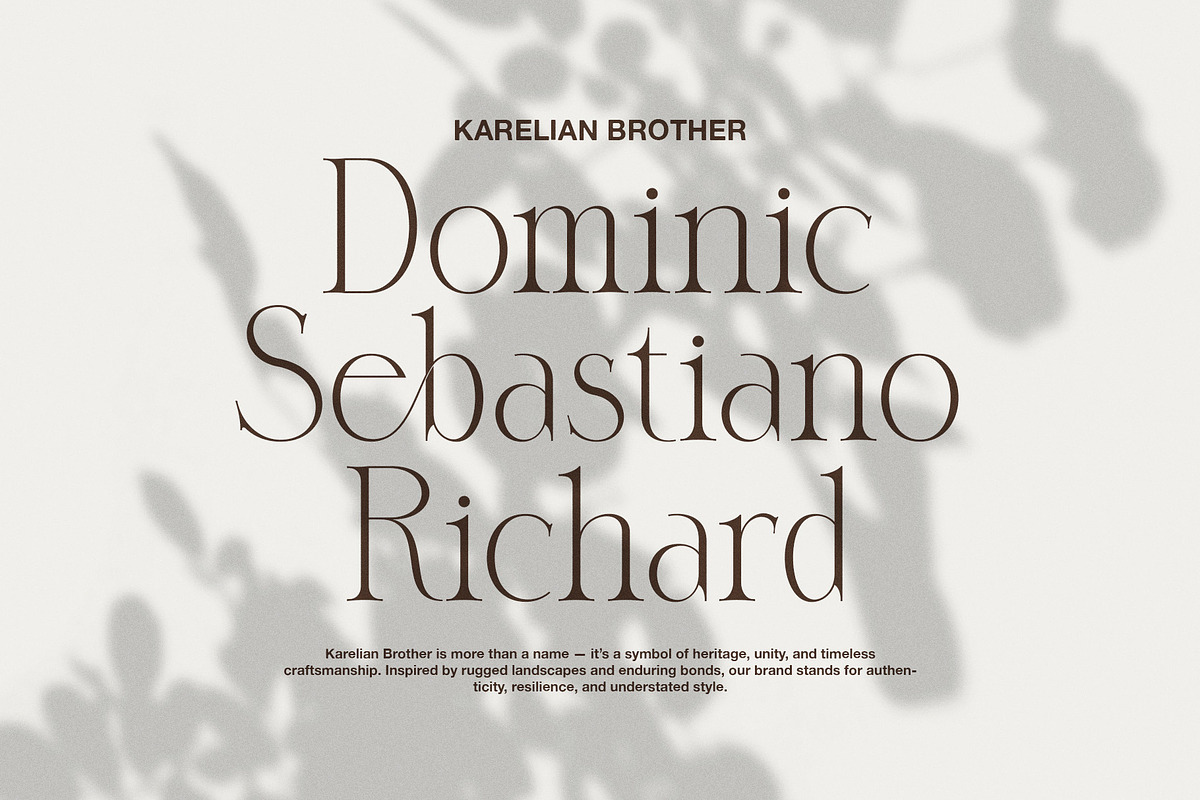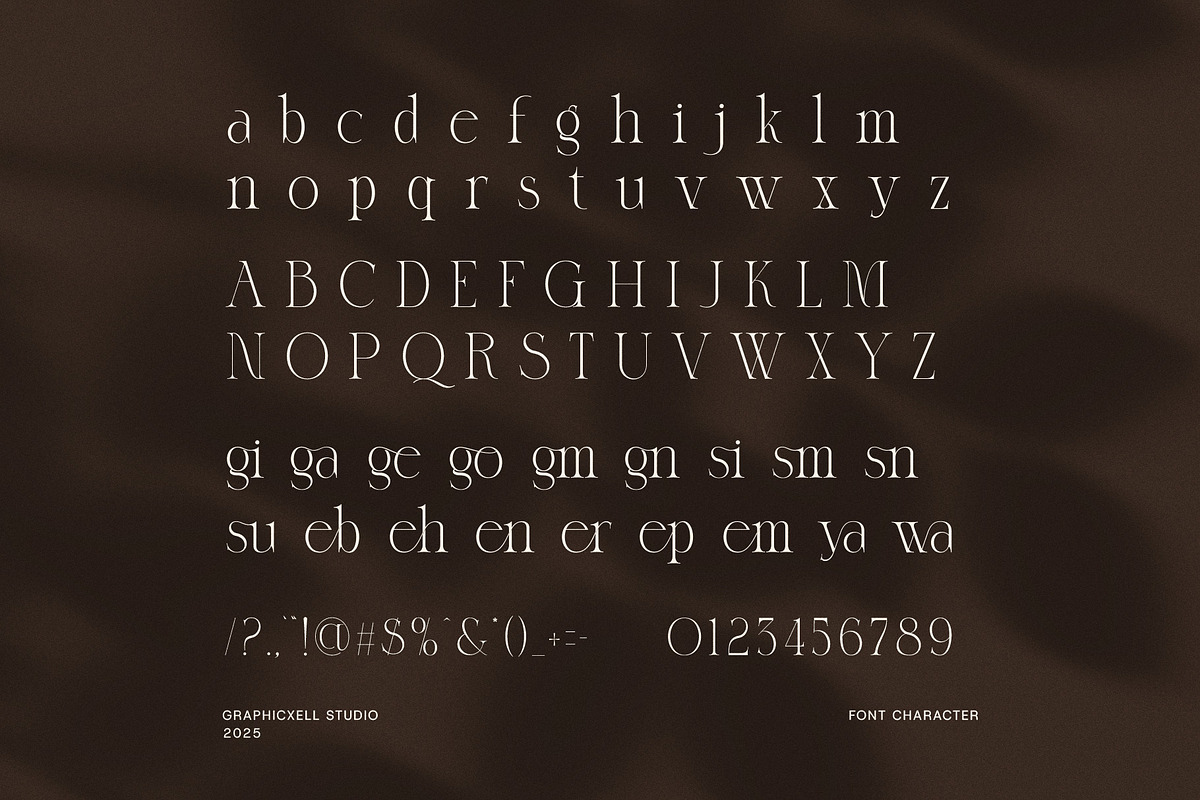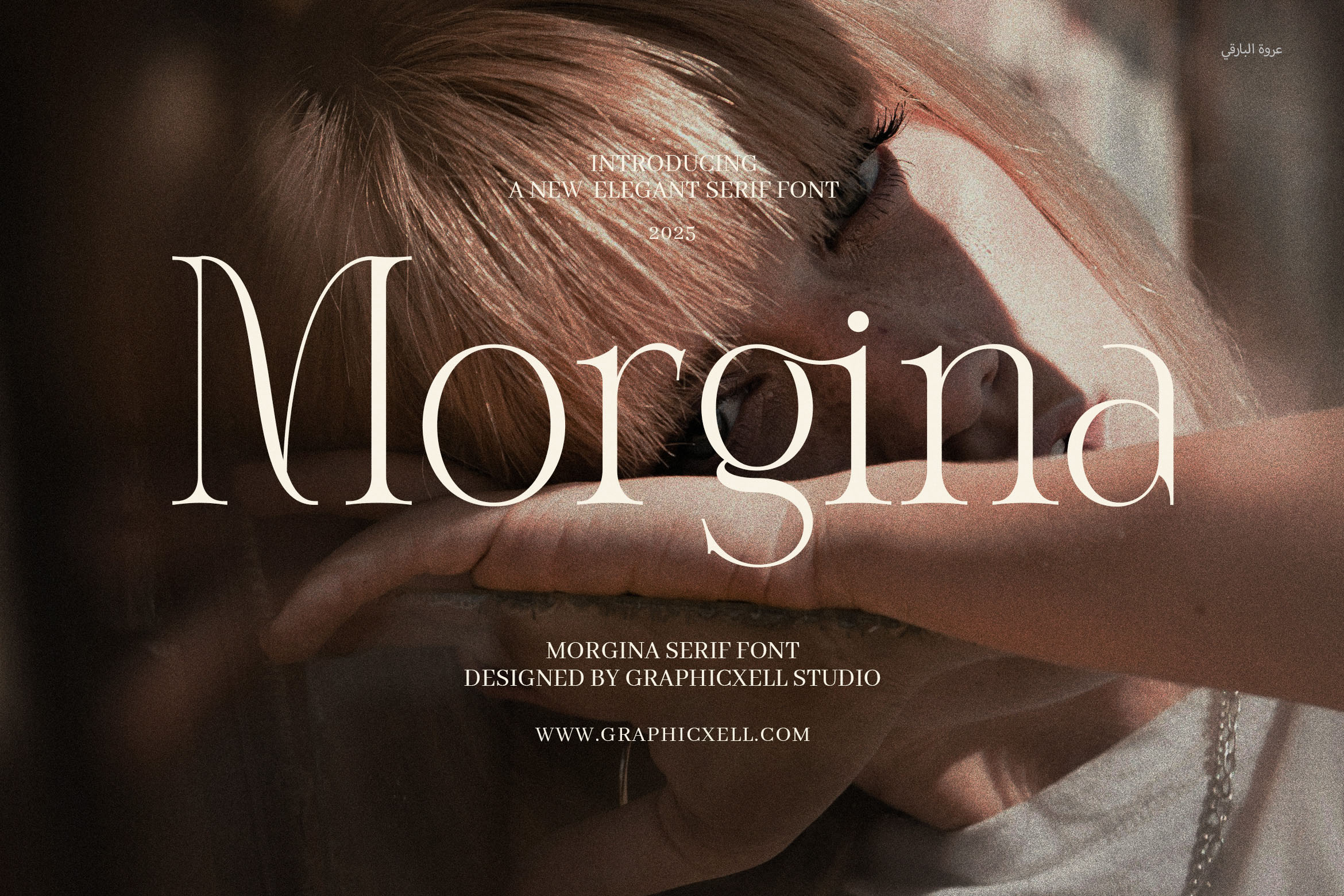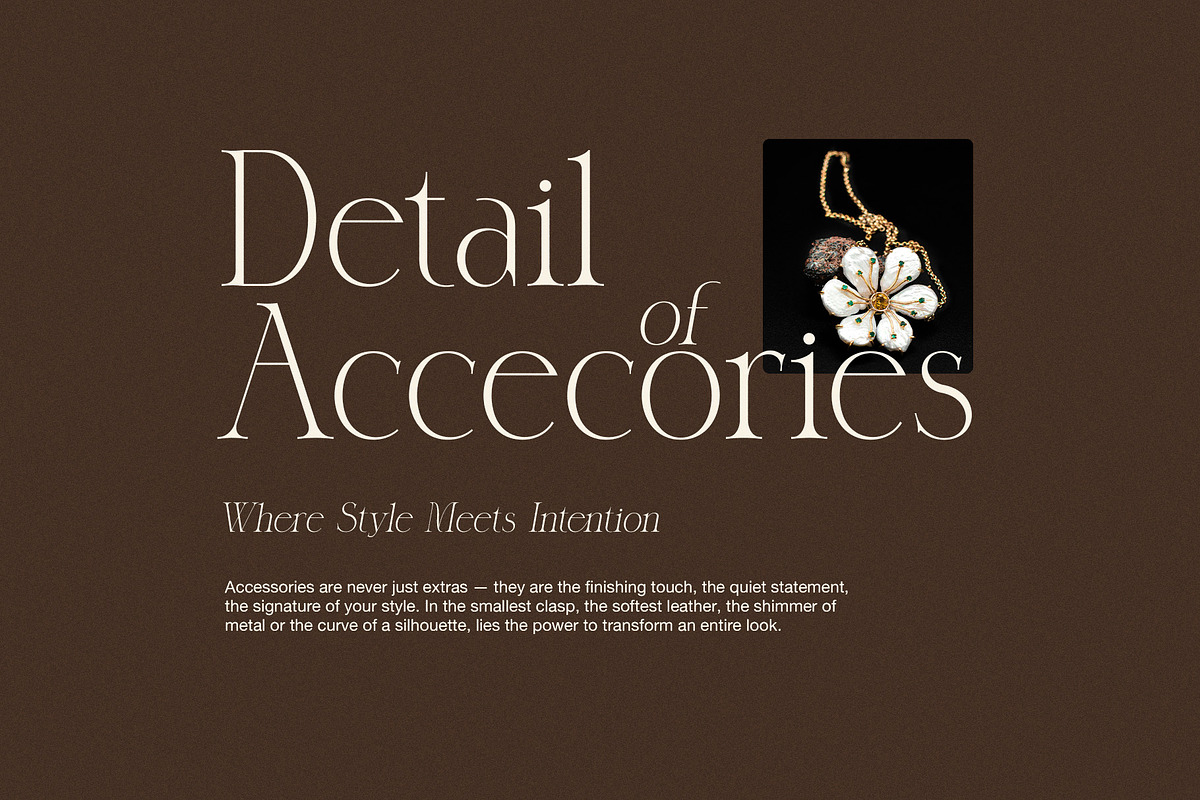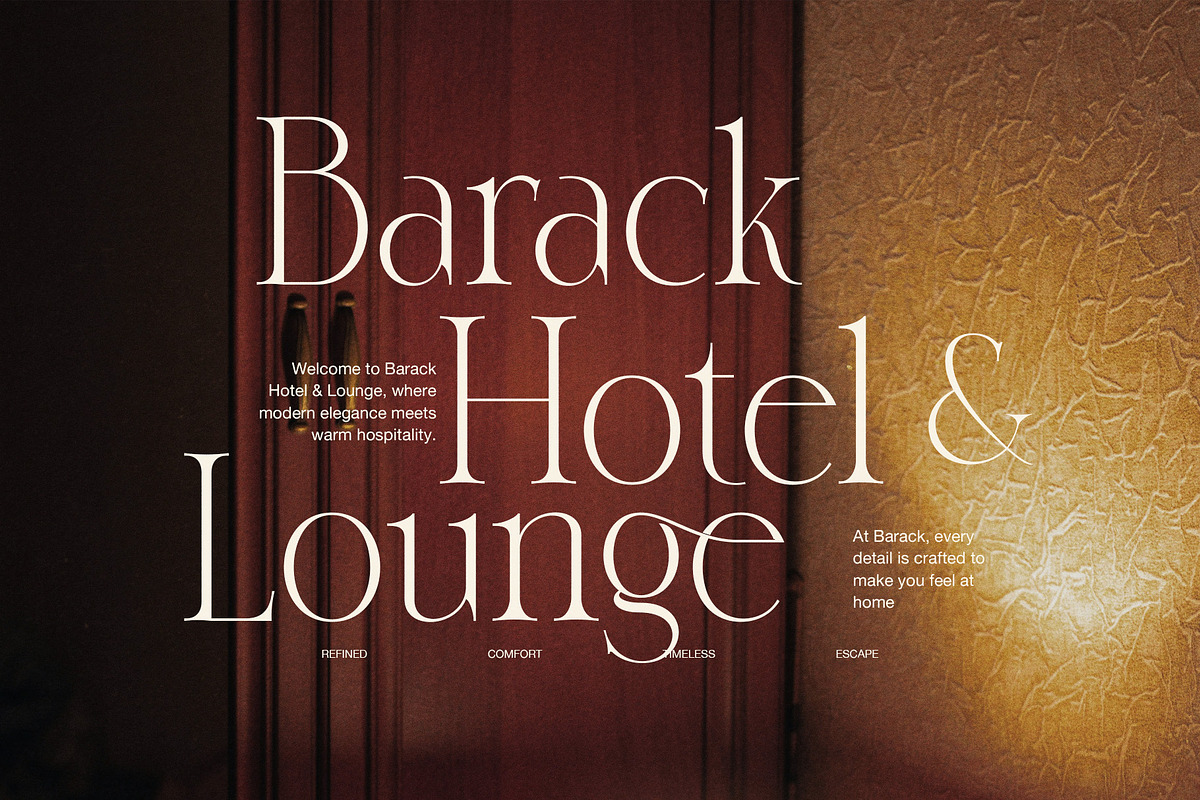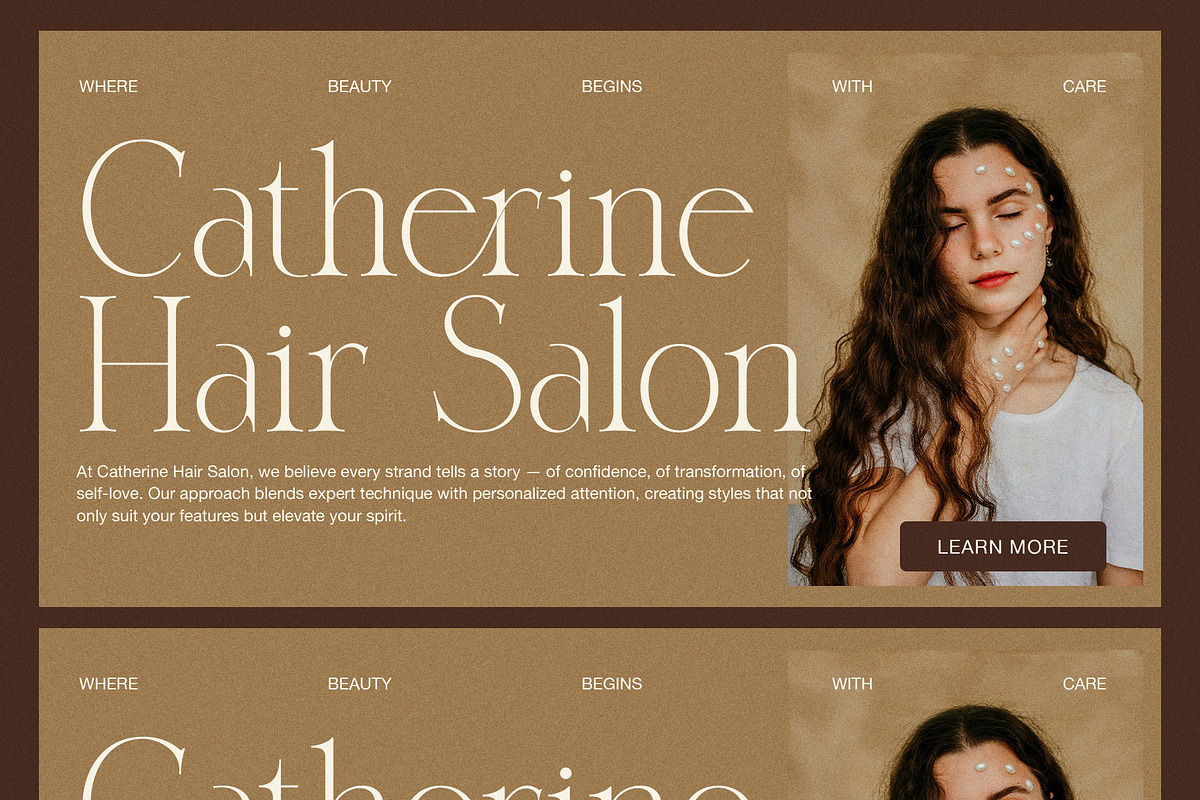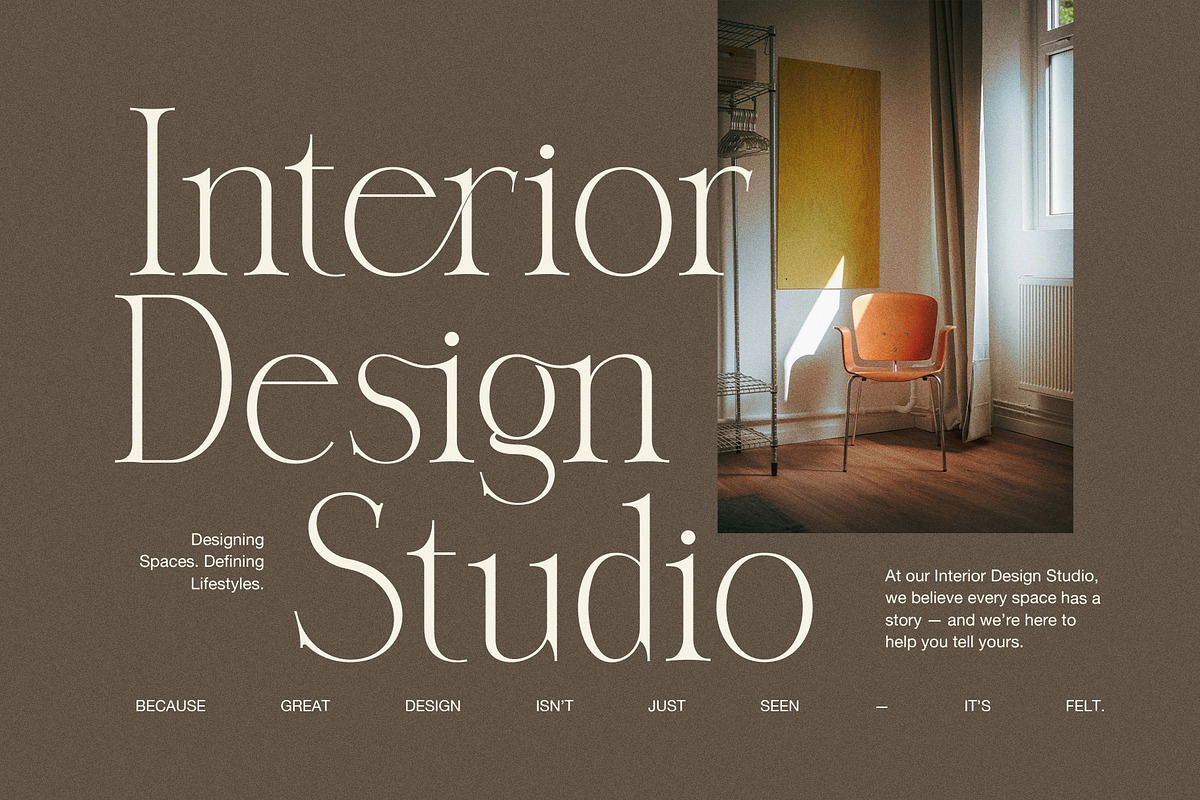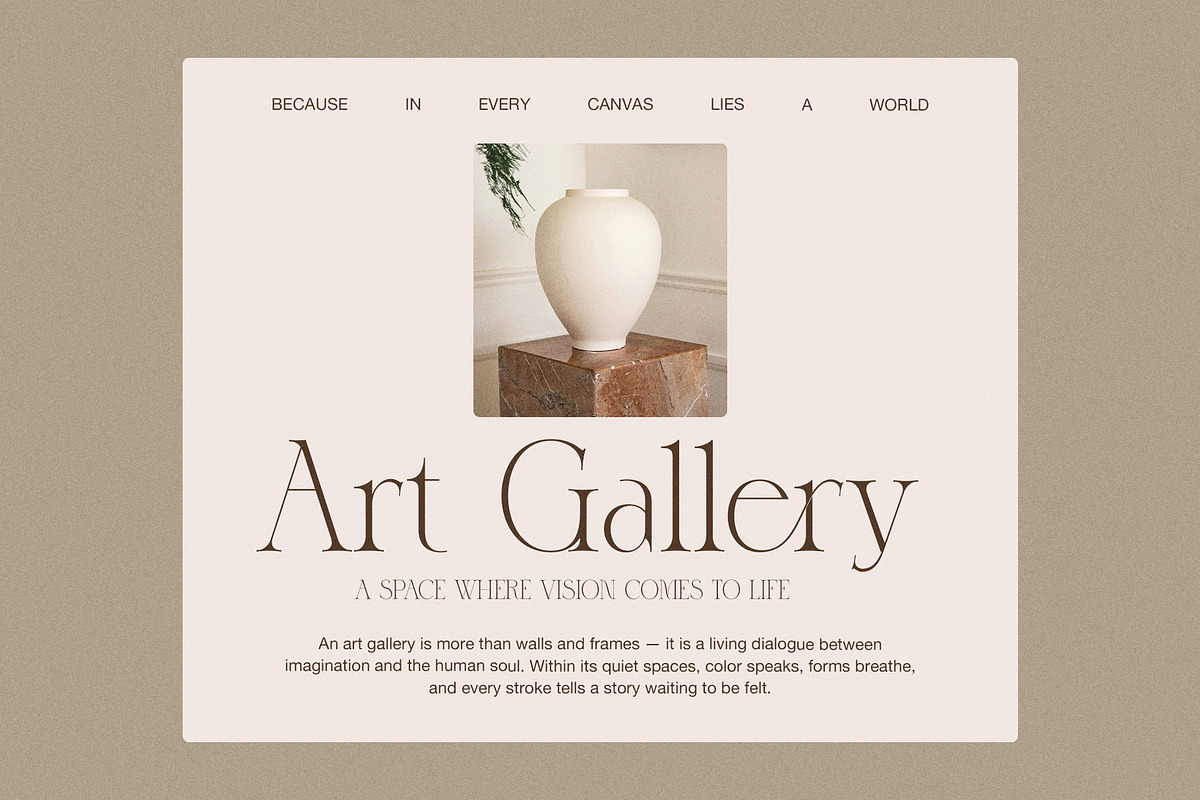
Morgina Elegant Serif Font
Morgina Elegant Serif Font is a refined blend of classic charm and contemporary sophistication, crafted for designers who crave timeless elegance with a modern twist. With its graceful curves, high-contrast strokes, and distinctive serifs, Morgina brings a luxurious feel to any design project. Whether you're creating a bold brand identity or adding a touch of class to editorial layouts, this font delivers both beauty and versatility.
Perfectly suited for logos, branding, website headers, fashion editorials, product packaging, and upscale advertisements, Morgina exudes confidence and creativity. Its elegant structure makes it a standout choice for boutiques, beauty products, fine dining brands, and lifestyle blogs aiming to evoke refinement and style. The font includes a full set of uppercase and lowercase letters, punctuation, numerals, and multilingual support—making it a complete toolkit for creative professionals.
What sets Morgina apart is its ability to strike a balance between tradition and innovation. While inspired by classic serif typography, its modern proportions and sleek finish make it ideal for contemporary visual identities. The letterforms are thoughtfully designed to remain highly readable, even at smaller sizes, while still commanding attention in large-format applications like posters or magazine covers.
Use Morgina to elevate your design work with a typeface that speaks volumes. Its fashion-forward aesthetic pairs beautifully with minimalist layouts or can serve as the focal point in more expressive compositions. Morgina is more than just a font—it's a statement of style.